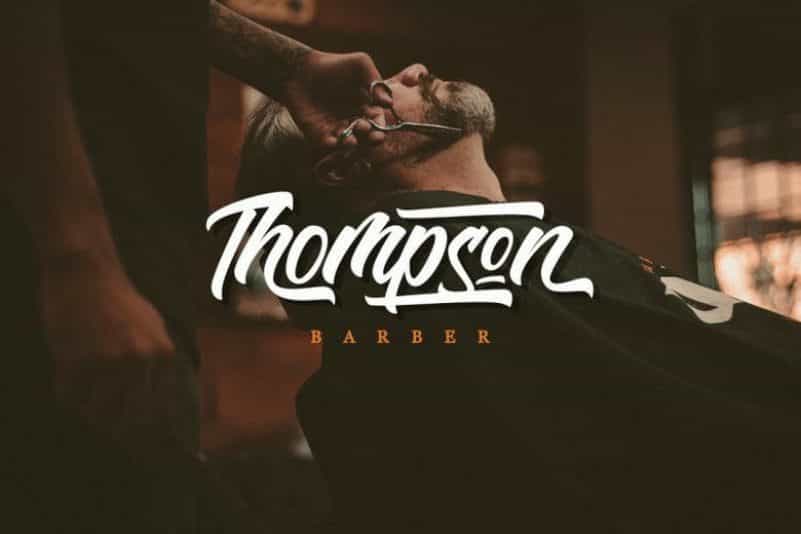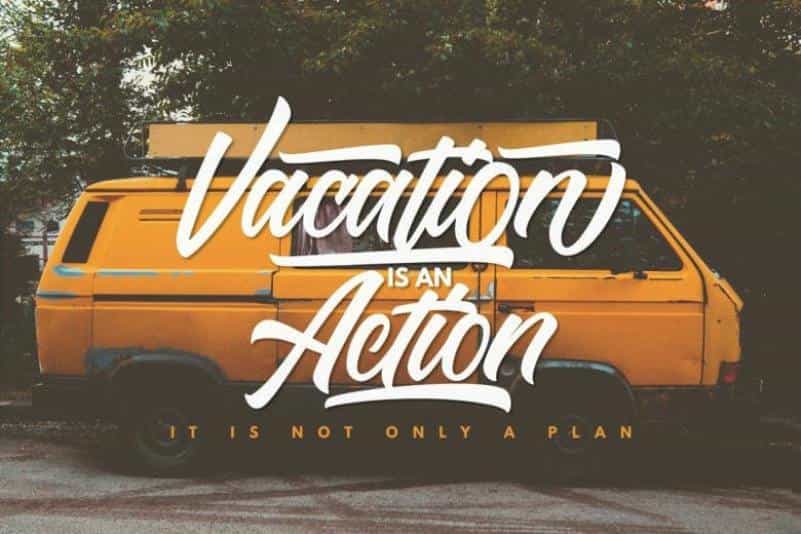
Riverside Font. The New Script typeface called Riverside Font. “ Riverside ” is a display typeface that is made by hand, inspired by classic posters. Comes with uppercase, lowercase, numerals, punctuations and so many variations on each character include OpenType alternates, common ligatures and also additional swash to let you customize your designs. Perfect to use for Logotype, Letterhead, Poster, Apparel Design, Label and etc.